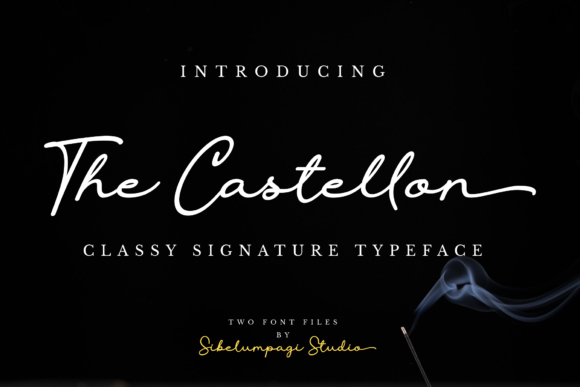
**Introducing The Castellon Font: The Key to Unlocking Elegance in Your Design**
Are you ready to elevate your design creations to new heights of sophistication? Look no further than The Castellon Font, a captivating script typeface that exudes class and refinement.
Crafted by the talented Sibelumpagi Studio, The Castellon comes in two captivating variations: regular and slant. Its elegant style effortlessly adds a touch of natural beauty to any design project, making it the perfect choice for creating:
* **Enticing Watermarks:** Leave a lasting impression on your photography with watermarks that whisper your brand's story.
* **Personalized Signatures:** Craft unique and memorable signatures that reflect your personality and style.
* **Captivating Logos:** Design logos that command attention with The Castellon's bold yet graceful lines.
* **Inspiring Quotes:** Share your wisdom and inspiration with quotes adorned in The Castellon's timeless elegance.
* **Unforgettable Branding:** Create a brand identity that exudes professionalism and sophistication.
* **Business Cards That Stand Out:** Make a statement with business cards that leave a lasting impression.
* **And countless other design masterpieces...**
Whether you're a seasoned designer or just starting your creative journey, The Castellon Font has the power to transform your designs into works of art. Its versatility knows no bounds, making it the perfect choice for any project that demands a touch of sophistication and timeless beauty.
So why wait? Embark on your creative adventure today and experience the magic of The Castellon Font. Let its elegant curves and enchanting style elevate your designs to new heights of brilliance.